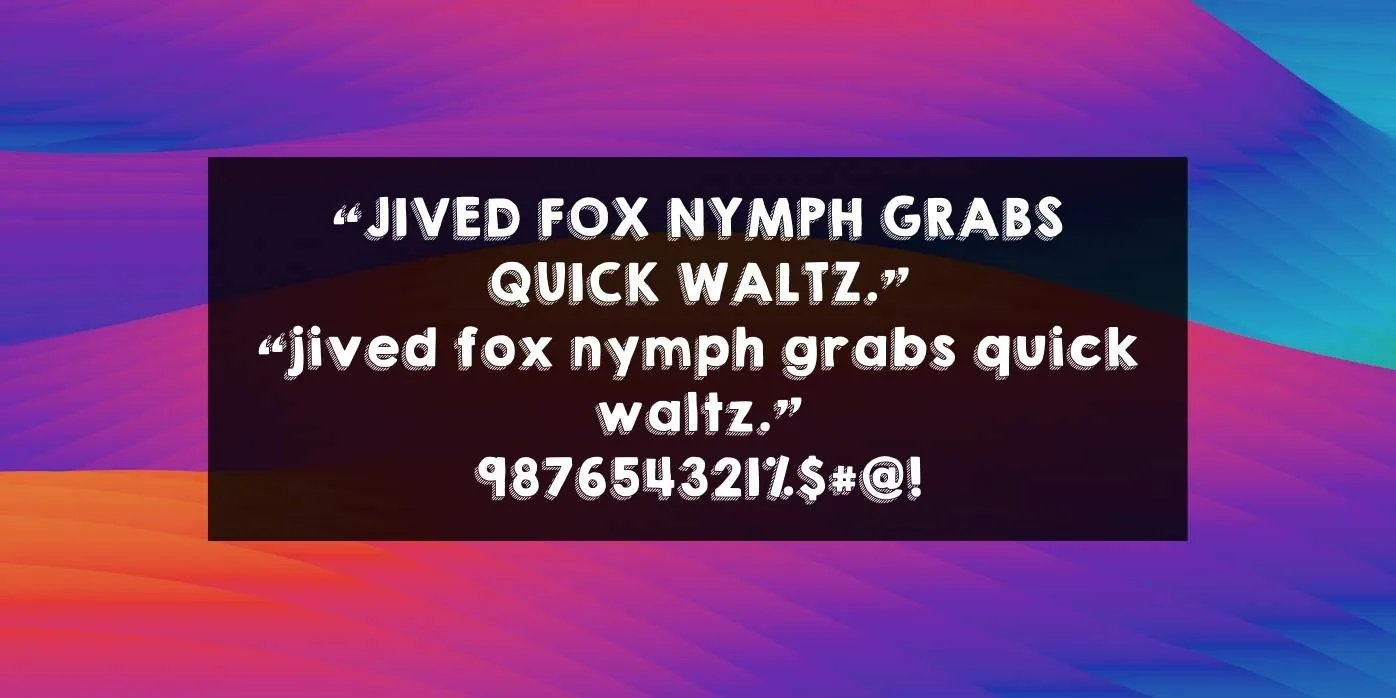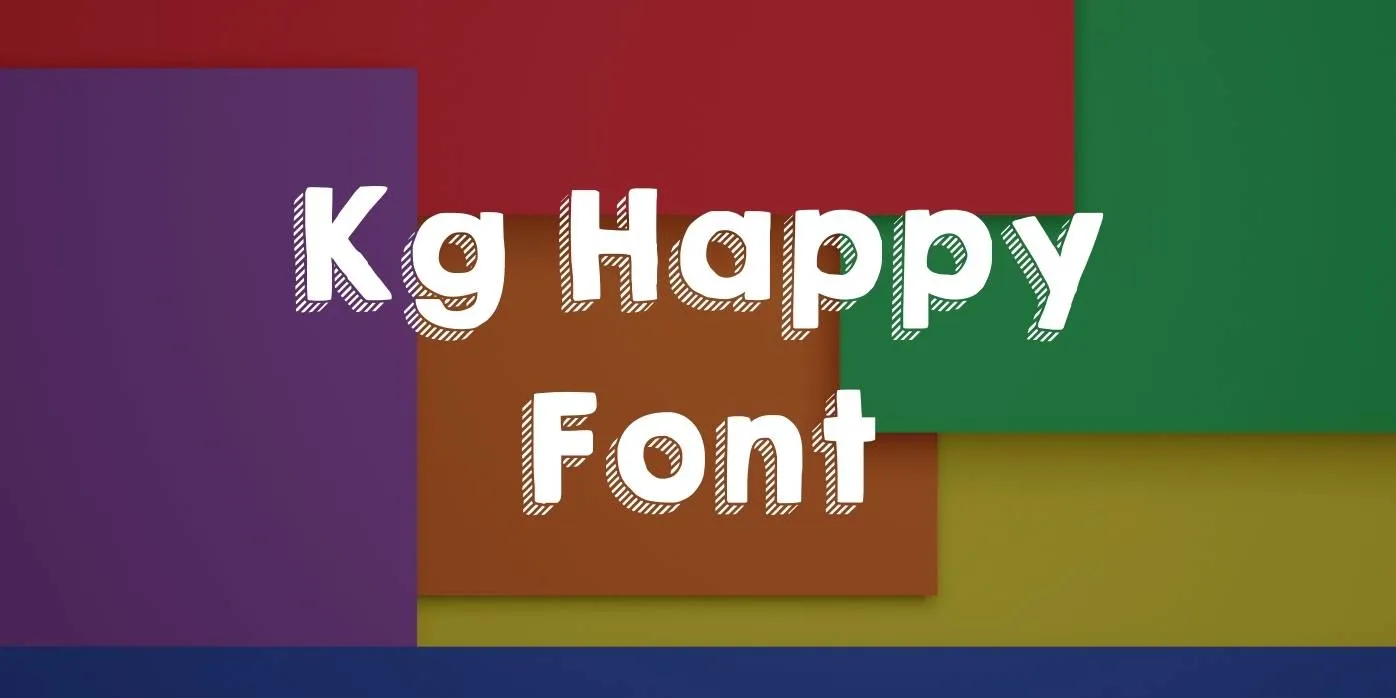
KG Happy Font
KG Happy Font belongs to the category of fancy fonts. This awesome typeface was developed by Kimberly Geswein. You can use this font for various purposes such as headings, logos, titles, and body text. This family includes 12 different styles that come in 2 versions, including the regular and distressed versions.
You can also copy and paste the function of this typeface. You can use its similar lucy font for different designs. KG Happy Font is a great choice for those who are looking for a fun and playful font. It’s perfect for websites, blogs, and other online applications.